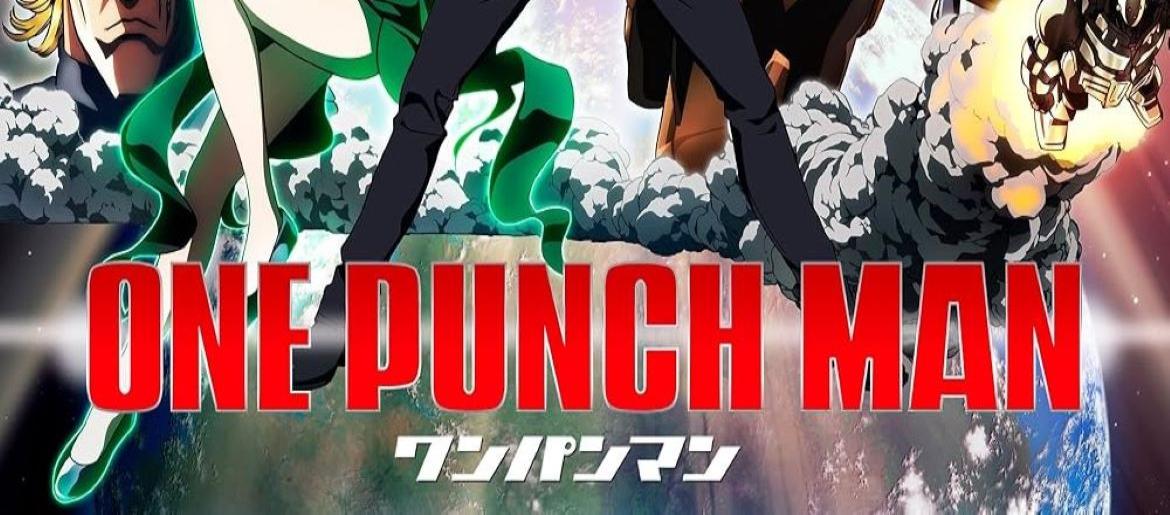
One Punch Man Font
What Font is One Punch Man?
The One Punch Man font is most likely a combination of East-West, Imnova ST, and Impact. While these fonts are premium, we’ve found a free alternative font that closely resembles the show’s distinctive typeface. This free version captures the same bold and dynamic aesthetic, making it a suitable choice for design projects inspired by the series’ visual identity.